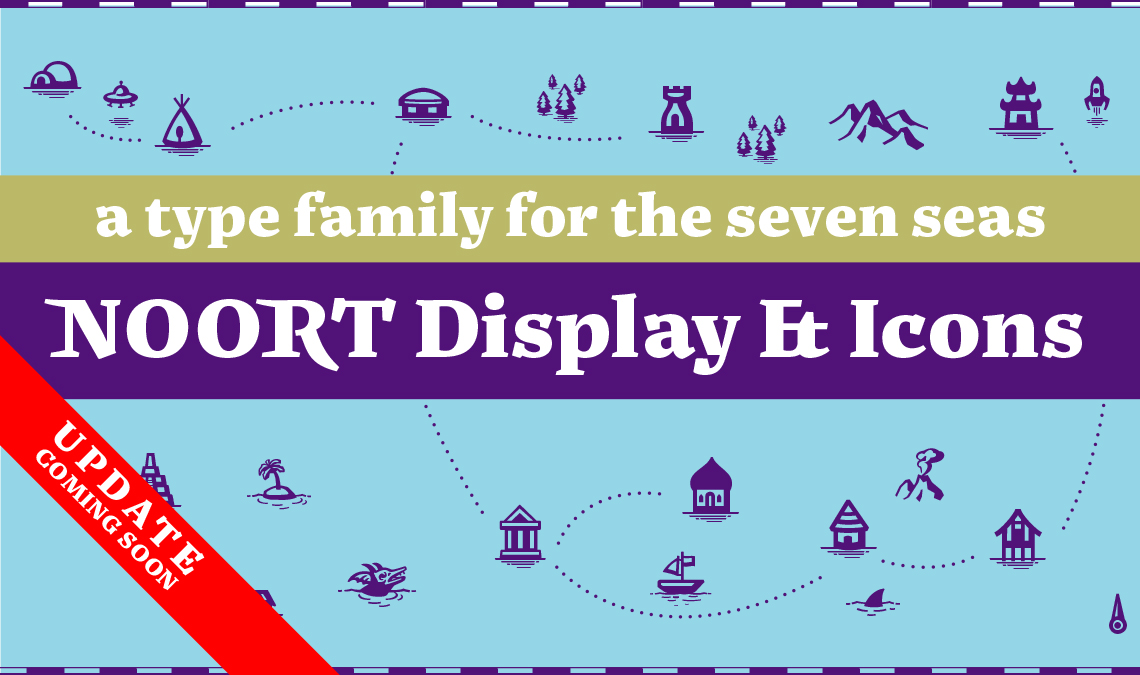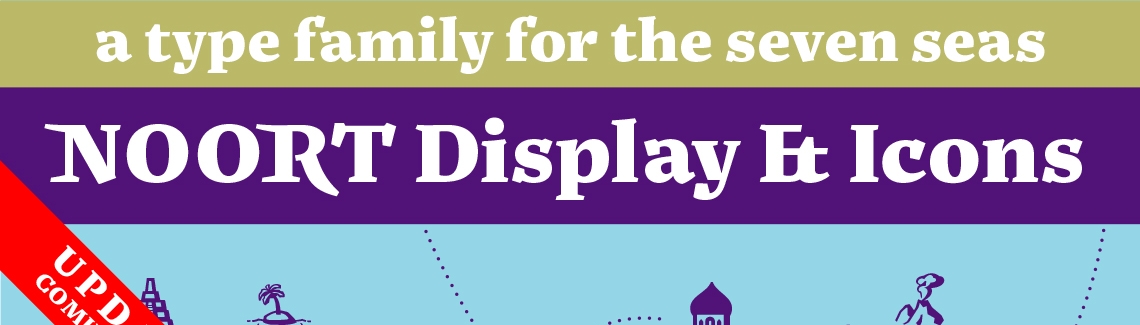
Sneak Peek: Noort Display & Icons
Noort Display and Icons preview. Upcoming release for all your swashbuckling, cartographic needs. Including monsters, space rockets, aliens, swashes galore, and much more!
Since reading requires the ability to distinguish words that may differ by only one letter, what has its roots in cartography lends exceptionally well to paragraph text. So in July 2017 Juan Bruce released Noort, the layer-wrangling map-inspired serif that excels in clarity. Since then he’s been hard at work to complete an extra dark display style and an extended set of icons, which will be released soon. (There be monsters in here!) Until then, we’ve created a little teaser to tide you over.